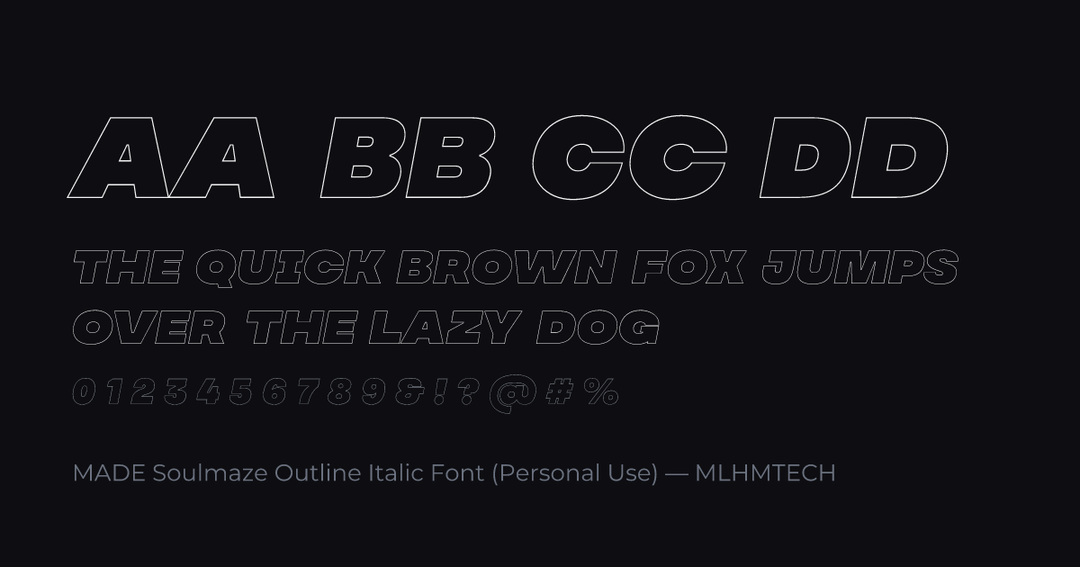
MADE Soulmaze Outline Italic Font (Personal Use)
MADE Soulmaze Outline Italic is a decorative display font with an outlined, italic style. Ideal for adding a modern, handcrafted touch to your designs.
MADE Soulmaze Outline Italic is a unique display font that features an outlined, italic design. Its intricate letterforms and contemporary feel make it perfect for branding, posters, social media graphics, and other creative projects. The font is provided in OTF format, ensuring high quality and compatibility with most design software.
Enhance your typography with this distinctive font that stands out while maintaining readability. Whether you're designing a logo, a quote graphic, or a wedding invitation, MADE Soulmaze Outline Italic adds a touch of elegance and originality.